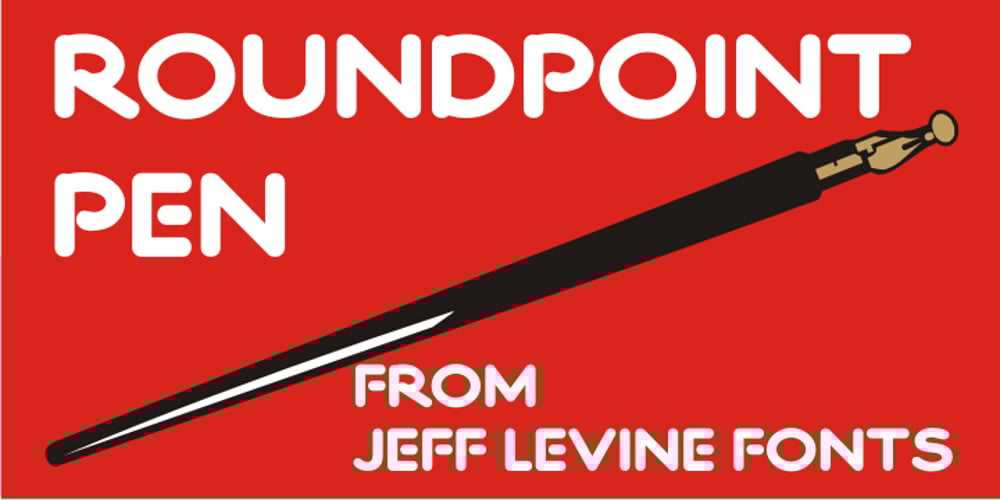
Roundpoint Pen JNL
Roundpoint Pen JNL font
Roundpoint Pen JNL Font Family was designed by Jeff Levine and published by Jeff Levine. Roundpoint Pen JNL contains 1 styles and family package options. Roundpoint Pen JNL is based on instructional lettering found in an old Speedball® Pen textbook. The effect of a round nib pen letter evokes the charm of the 1920s or 1930s.